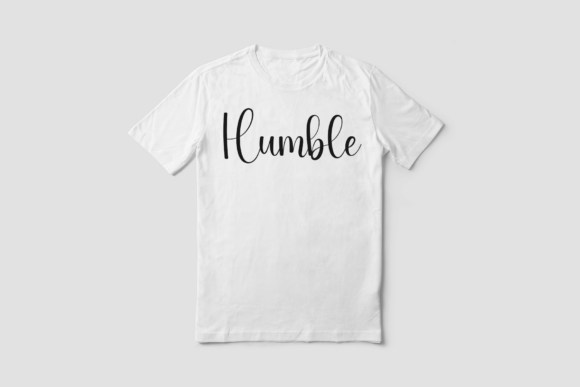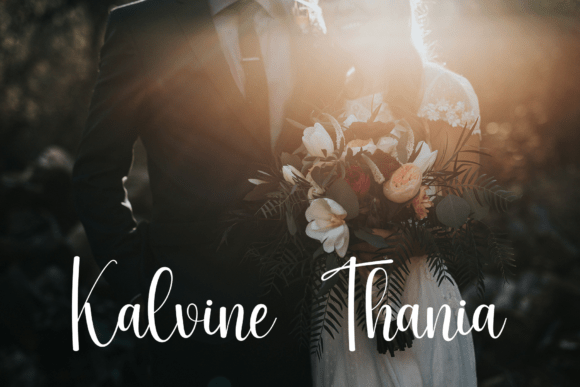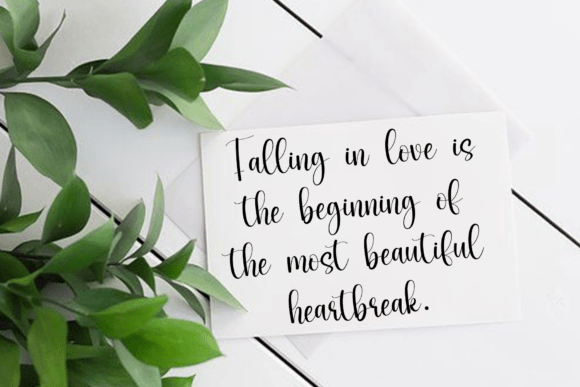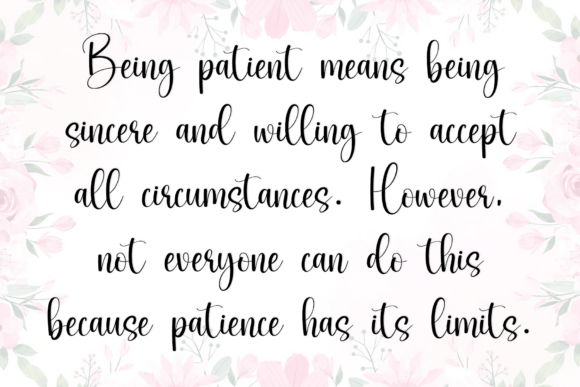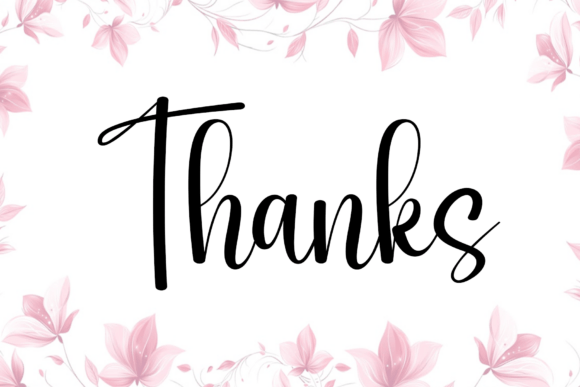
Introducing Greating Font: Elevate Your Designs with Elegance and Sophistication
In the world of typography, a well-crafted font can make all the difference in elevating your designs to new heights. If you’re a designer or crafter looking for a typeface that exudes luxury, sophistication, and modernity, look no further than Greating Font. This elegant and fluid handwritten script font is specifically designed to capture the essence of high-end branding, making it perfect for luxury wedding stationery, intimate event branding, high-end editorial signatures, and sophisticated lifestyle photography overlays.
The Characteristics of Greating Font
Greating Font boasts a range of characteristics that set it apart from other typefaces. Its fluid, handwritten script style gives it a sense of elegance and sophistication, while its modern and refined aesthetic ensures it remains fresh and contemporary. The font’s clean lines, subtle curves, and expertly crafted letterforms create a beautiful, cohesive look that’s sure to impress.
Perfect for Luxury Wedding Stationery and Intimate Event Branding
When it comes to wedding stationery and event branding, the right font can make all the difference in setting the tone for your special day. Greating Font is the perfect choice for couples looking for a sophisticated and elegant typeface that reflects their refined taste. Whether you’re designing wedding invitations, save-the-date cards, or event signage, Greating Font adds a touch of luxury and sophistication that’s sure to impress your guests.
Elevate Your Editorial Signatures with Greating Font
For editorial designers and writers, a high-end typeface can elevate the look and feel of your publication. Greating Font is the perfect choice for adding a touch of sophistication to your editorial signatures, article titles, and other design elements. Its refined aesthetic and modern style ensure it complements a range of design schemes, from minimalist to ornate.
Sophisticated Lifestyle Photography Overlays
For lifestyle photographers and designers, adding a touch of elegance to your overlays can make all the difference in creating stunning visuals. Greating Font is the perfect choice for adding text overlays to your photos, giving them a sophisticated and refined look that’s sure to impress. Whether you’re designing social media graphics, blog posts, or marketing materials, Greating Font adds a touch of luxury and sophistication that’s sure to elevate your designs.
Why Choose Greating Font?
So why choose Greating Font over other typefaces? Here are just a few reasons why designers and crafters love this elegant and fluid handwritten script font:
- Elegant and sophisticated aesthetic: Greating Font boasts a refined and modern style that’s perfect for luxury branding and design.
- Fluid handwritten script style: The font’s fluid, handwritten script style gives it a sense of elegance and sophistication.
- Perfect for a range of design applications: From luxury wedding stationery to high-end editorial signatures, Greating Font is versatile and adaptable.
- Easy to read and use: Despite its elegant aesthetic, Greating Font remains easy to read and use, making it perfect for body text and headlines.
In conclusion, Greating Font is a stunning and sophisticated typeface that’s perfect for designers and crafters looking to elevate their designs. With its elegant and fluid handwritten script style, modern aesthetic, and versatility, Greating Font is the perfect choice for luxury wedding stationery, intimate event branding, high-end editorial signatures, and sophisticated lifestyle photography overlays. So why wait? Discover the beauty of Greating Font for yourself and take your designs to new heights.